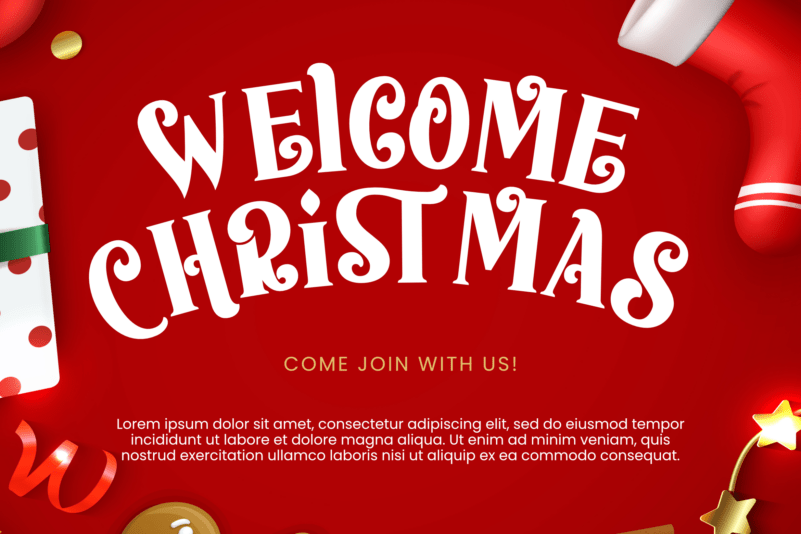
Panthura Christmas Font is a festive and incredibly classy serif font. It is ideal for any of your winter break creations, so add it to your designs and bring them to life! Panthura Christmas is PUA encoded, which means you can access all of the glyphs and swashes with ease!
Panthura Christmas is perfect for branding projects, logo, wedding designs, social media posts, advertisements, product packaging, product designs, label, photography, watermark, invitation, stationery and any projects that need handwriting taste.